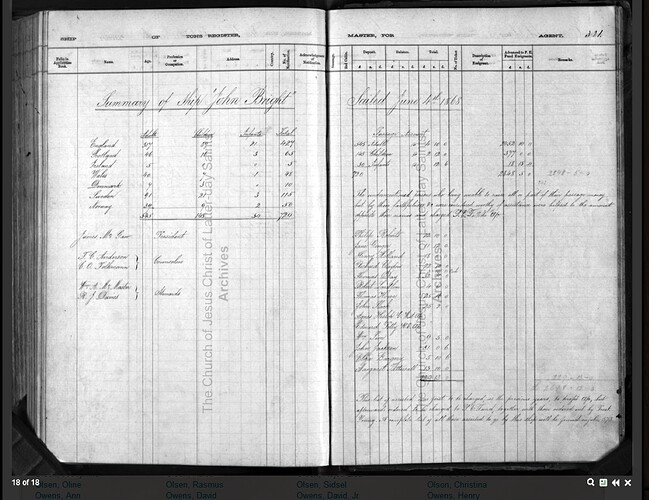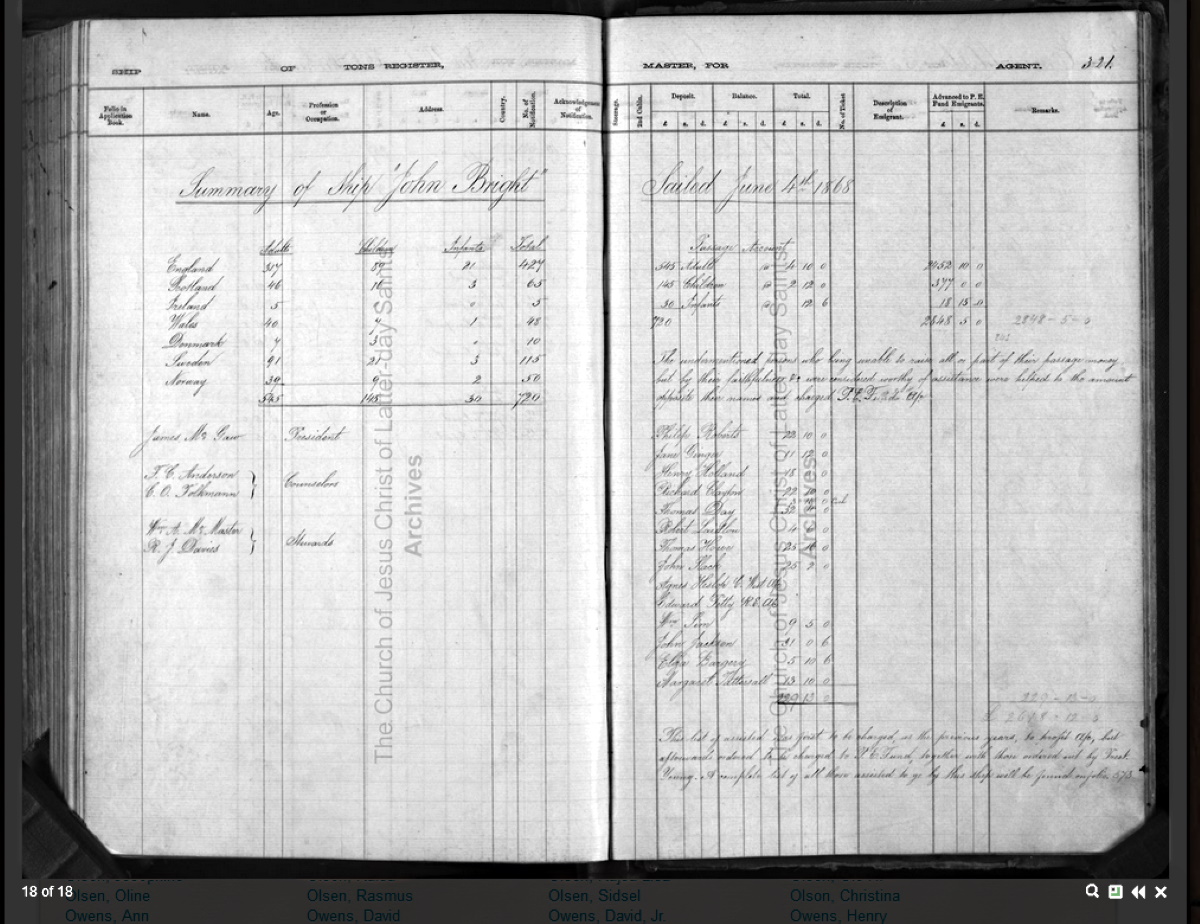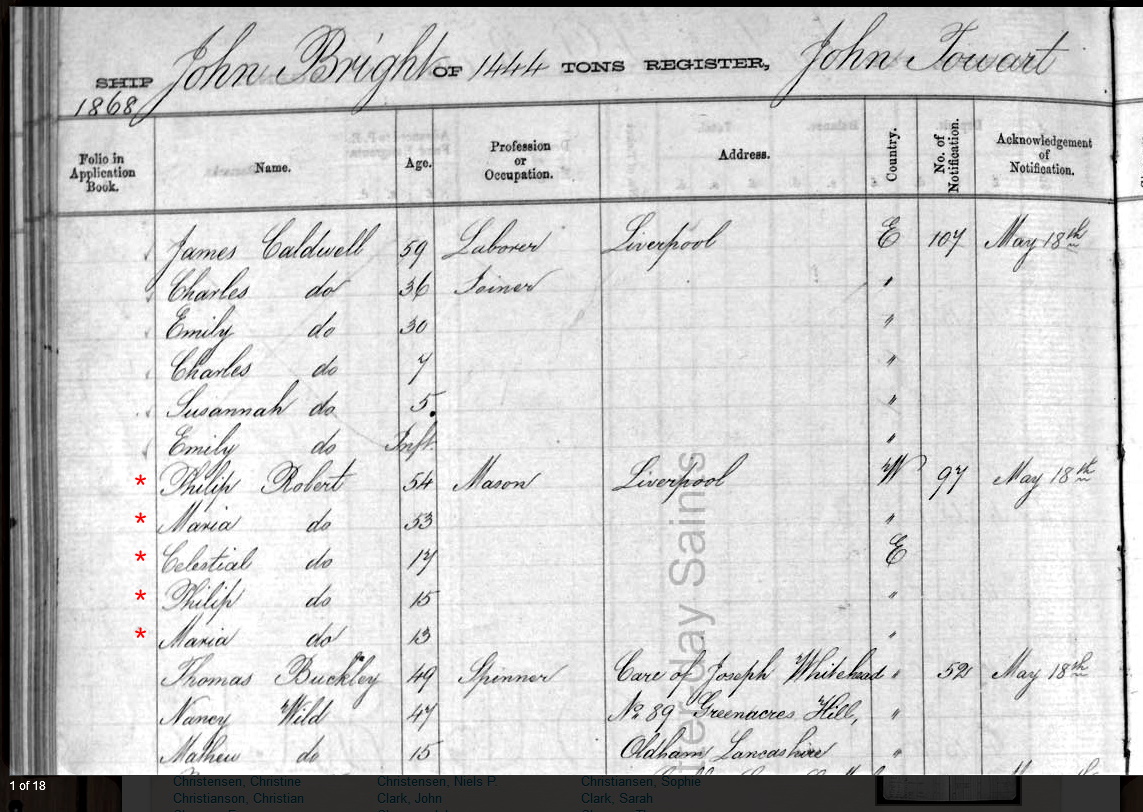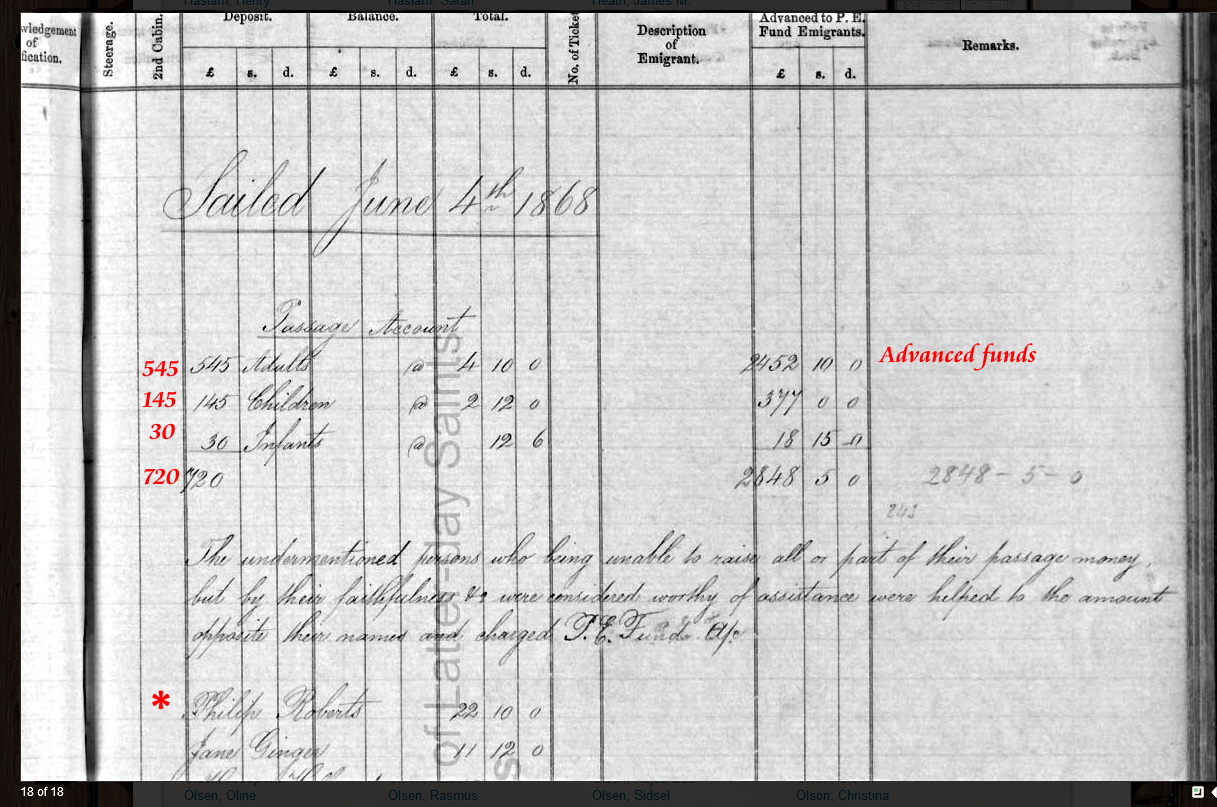
I haven’t found the scribe name (John Touart ?) for this voyage, but he had fantastic handwriting.
Someone should make a font of it and i doubt i will.
Look at the 18 pages!
Here are a few I copied for genealogy purposes:
That is a very nice handwriting indeed. I still intend to make a font out of my own handwriting when I have some spare time left, so maybe you should give it a try ![]()
I hope someone does.